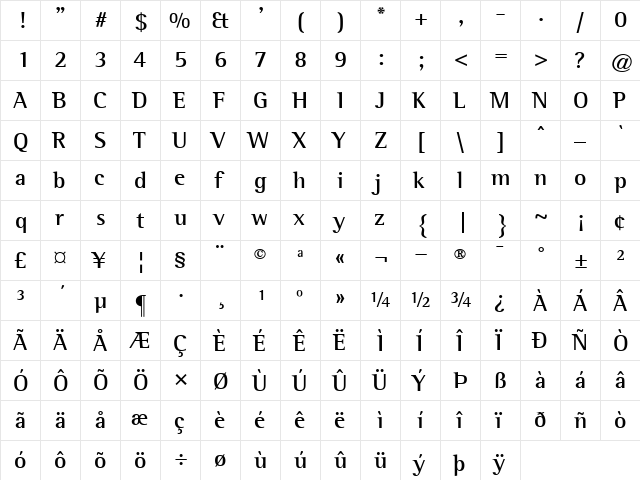
RotisSemiSerif65 Bold Font Preview
RotisSemiSerif65 Bold
Design Context for RotisSemiSerif65 Typeface
RotisSemiSerif65 brings classic typographic sensibility to the table — its serifs and measured letterforms reflect centuries of print heritage. The heavy weight commands attention and anchors typographic hierarchies.
Pro Tip: Set RotisSemiSerif65 with slightly loose tracking in headlines to let each letterform's detail read clearly at display sizes.